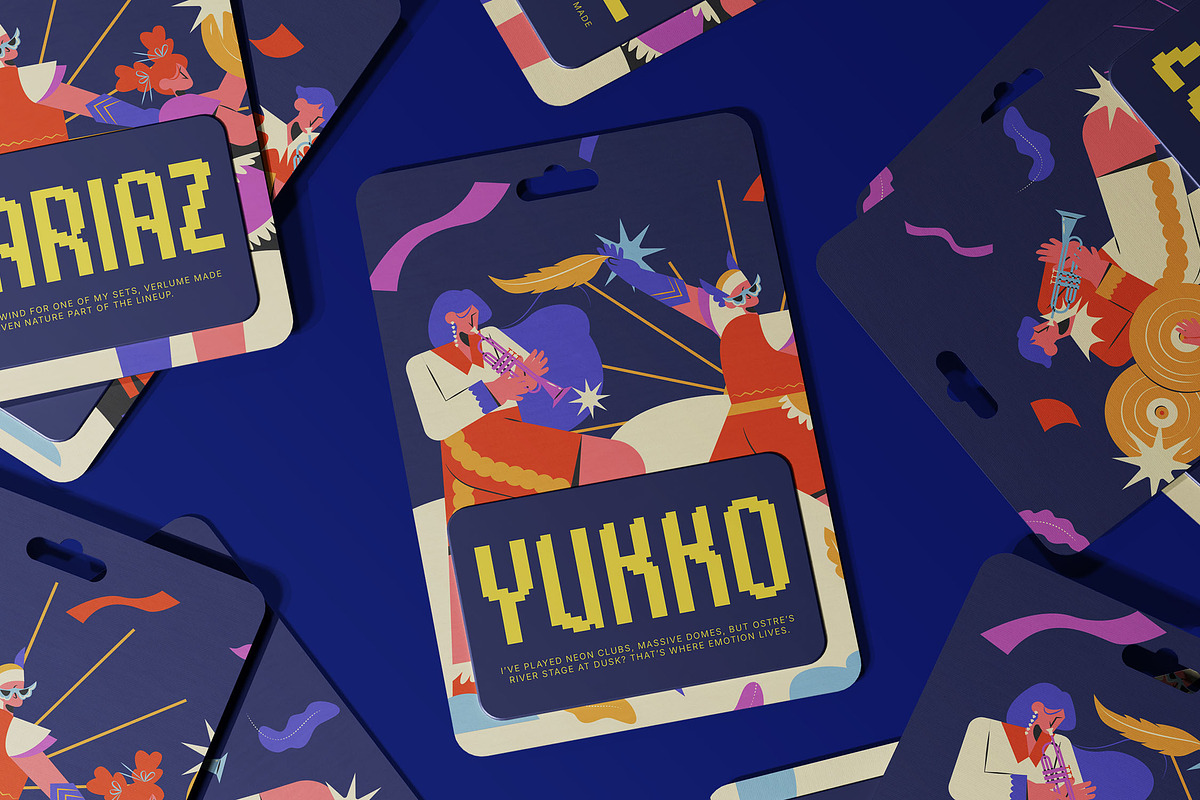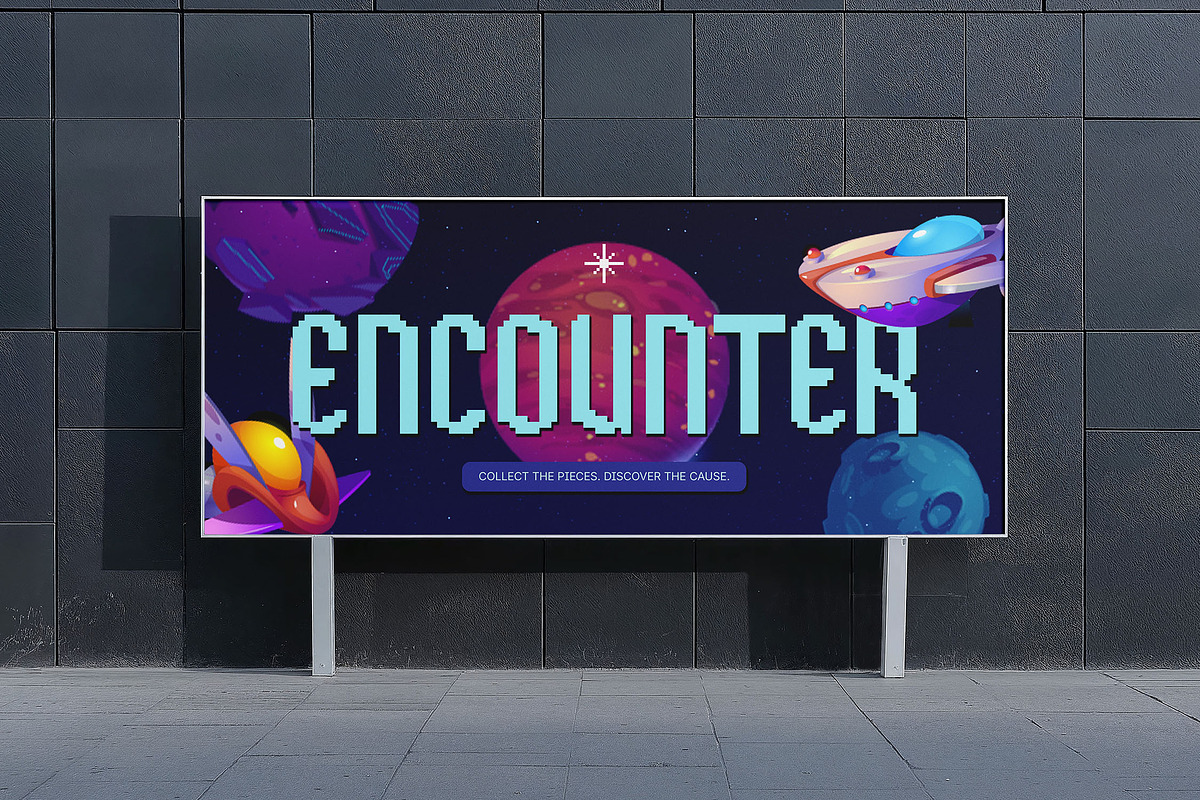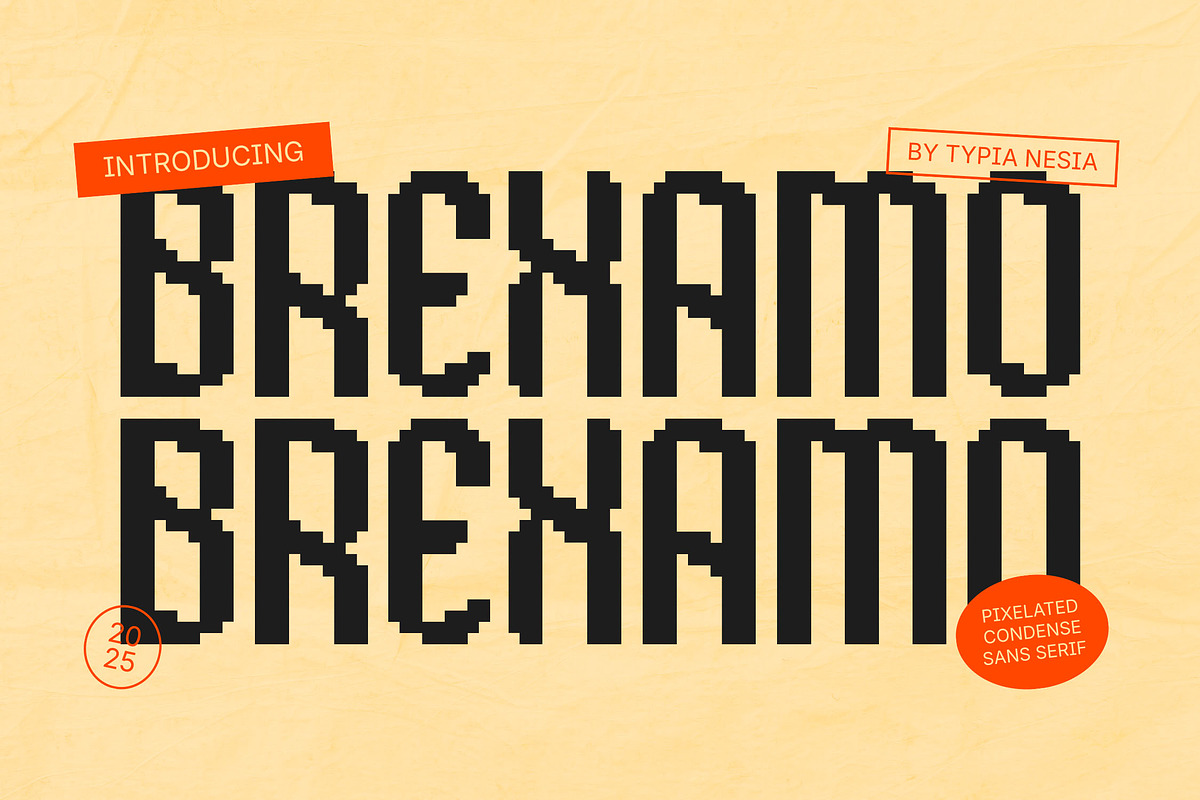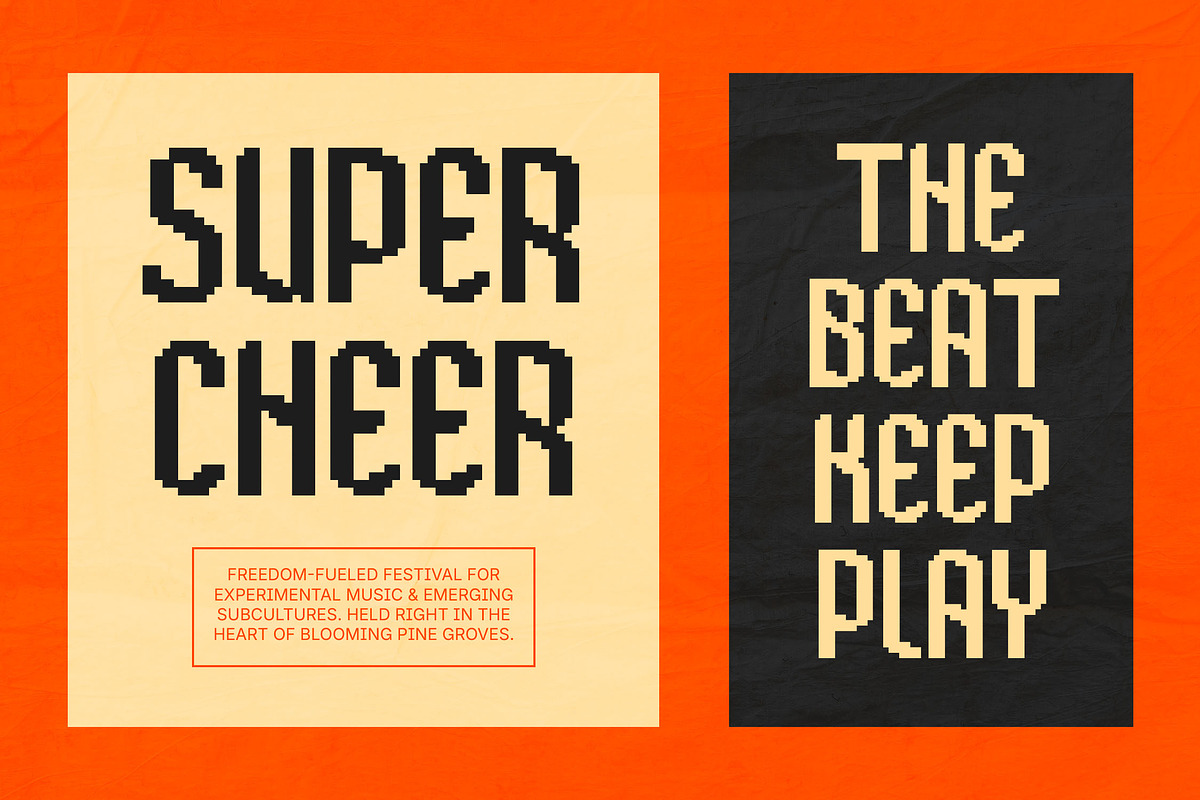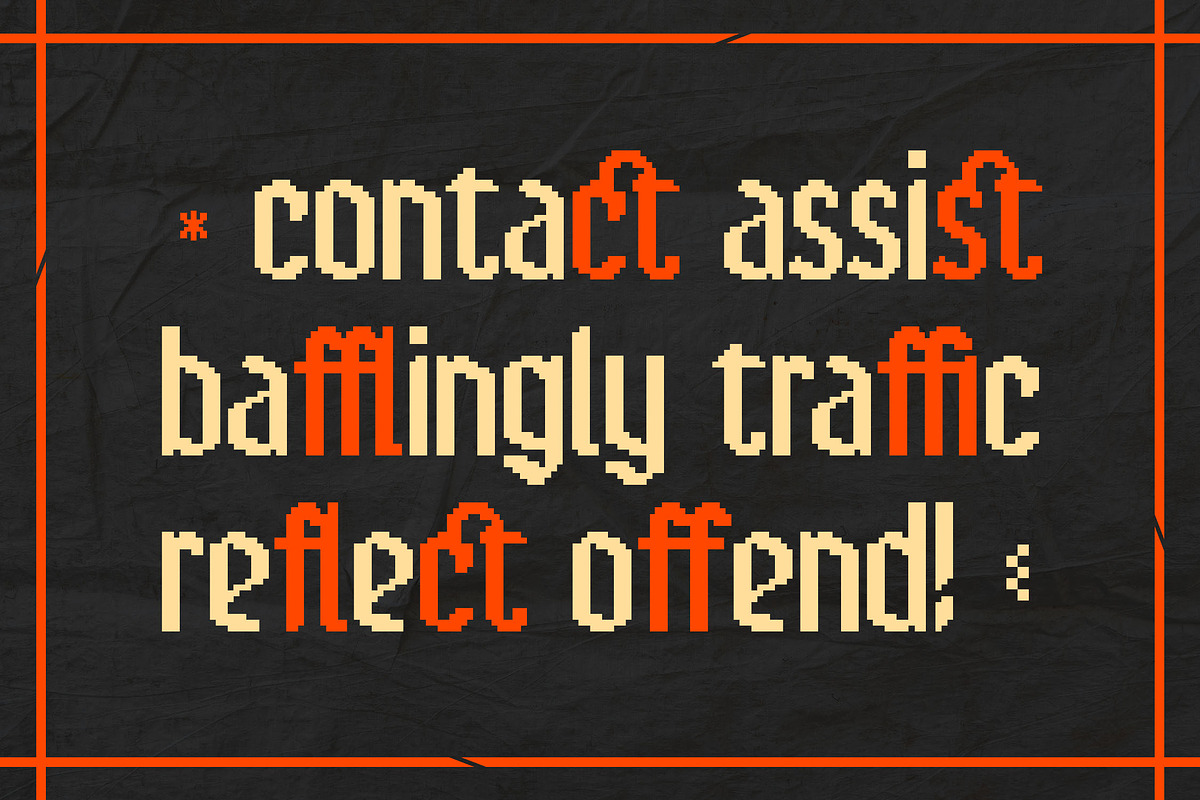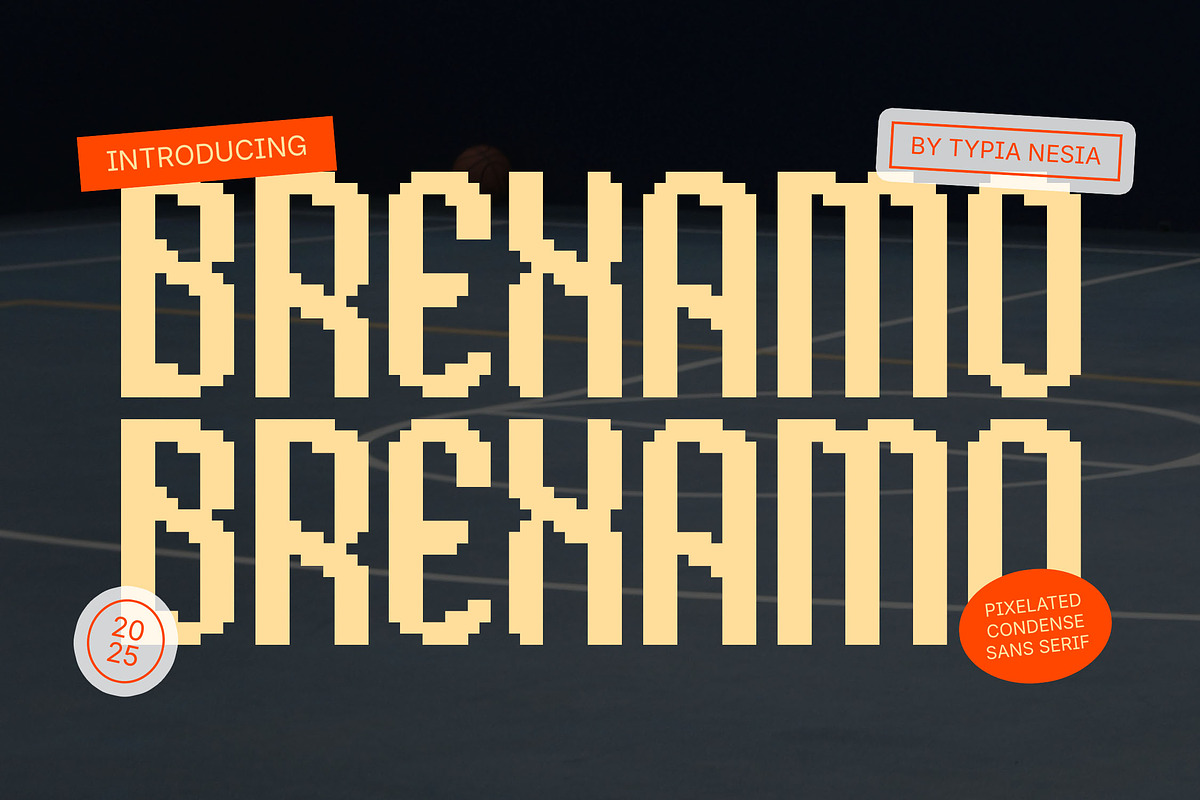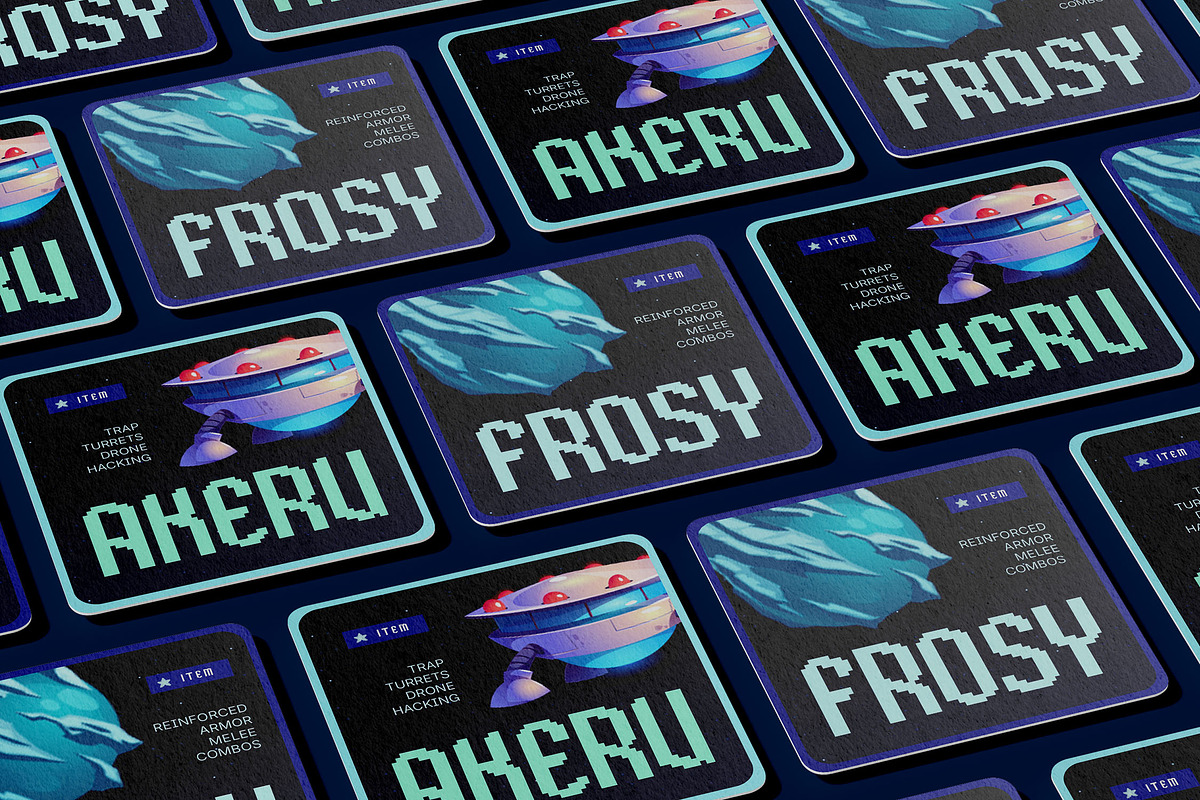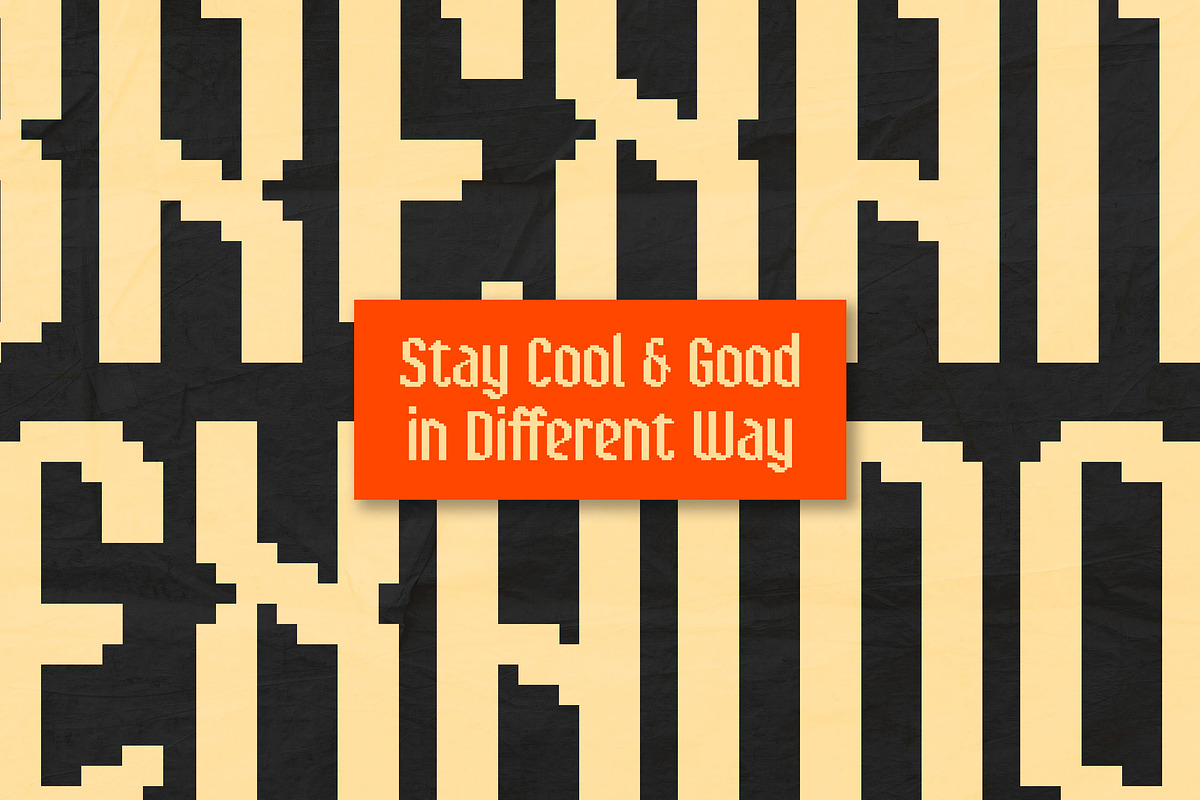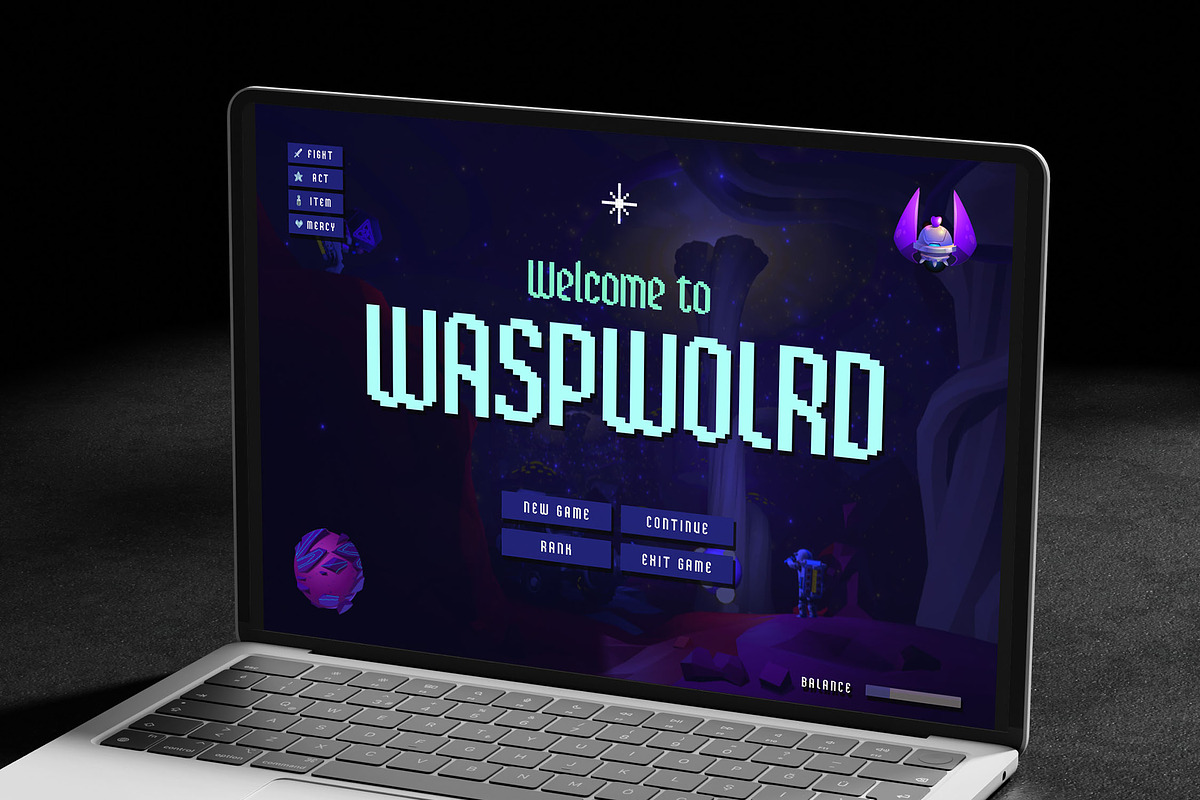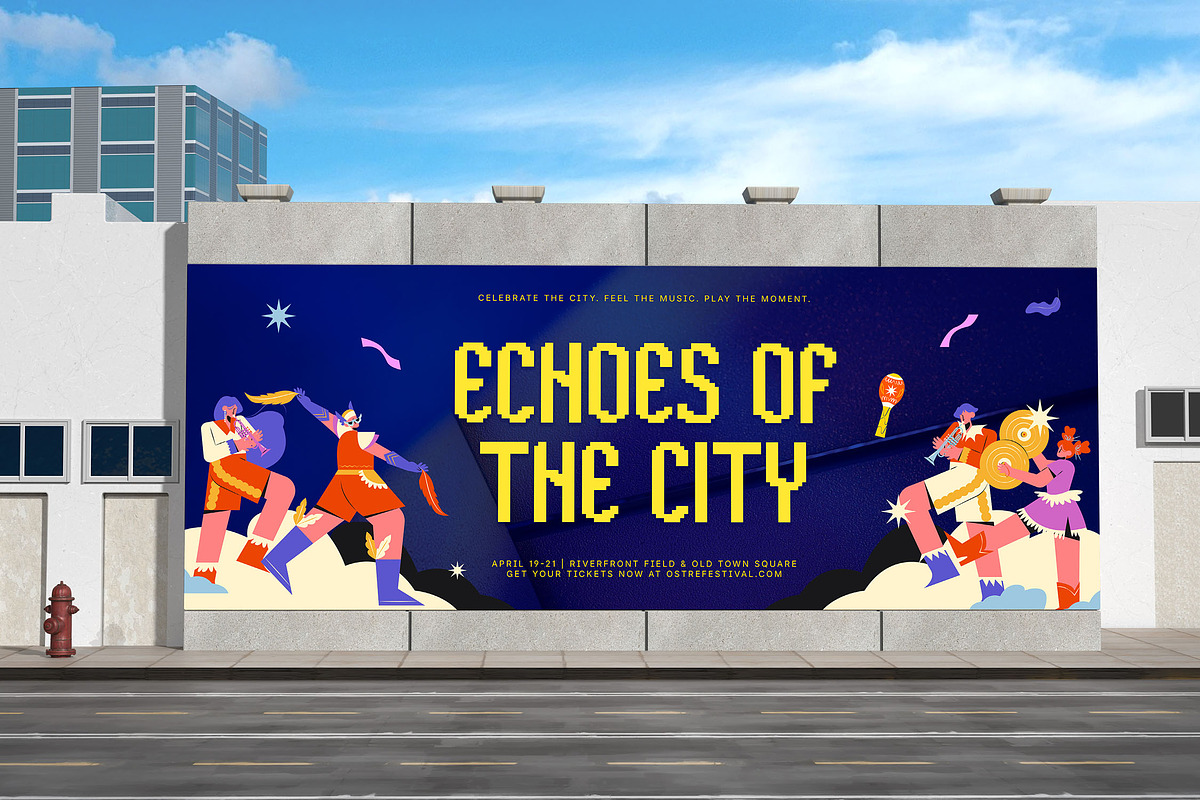
Brexamo - Pixelated Condensed Sans
Brexamo - Pixelated Condensed Sans Serif Font – Retro Gaming & Modern Digital Display.
Brexamo is an innovative pixelated condensed sans serif font that brings a nostalgic retro gaming vibe to modern digital designs. Crafted with a unique blocky aesthetic, Brexamo's condensed structure ensures efficient use of space, making it ideal for game titles, app interfaces, sci-fi themed branding, technology advertisements, logo design, vibrant posters and any projects that aim to evoke the charm of early video games, 8-bit graphics, and futuristic interfaces, full uppercase and lowercase characters, numerals, punctuation, and comprehensive multilingual support, Brexamo offers versatility for a wide range of creative applications.